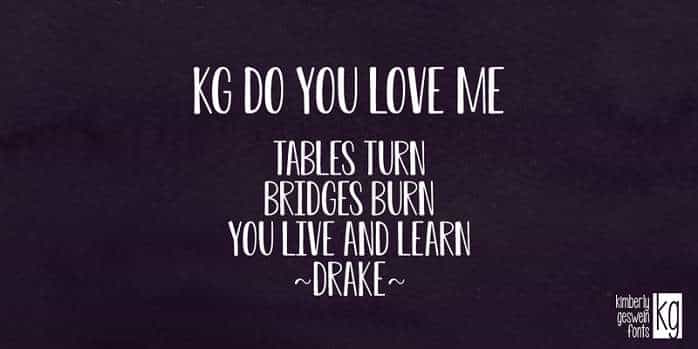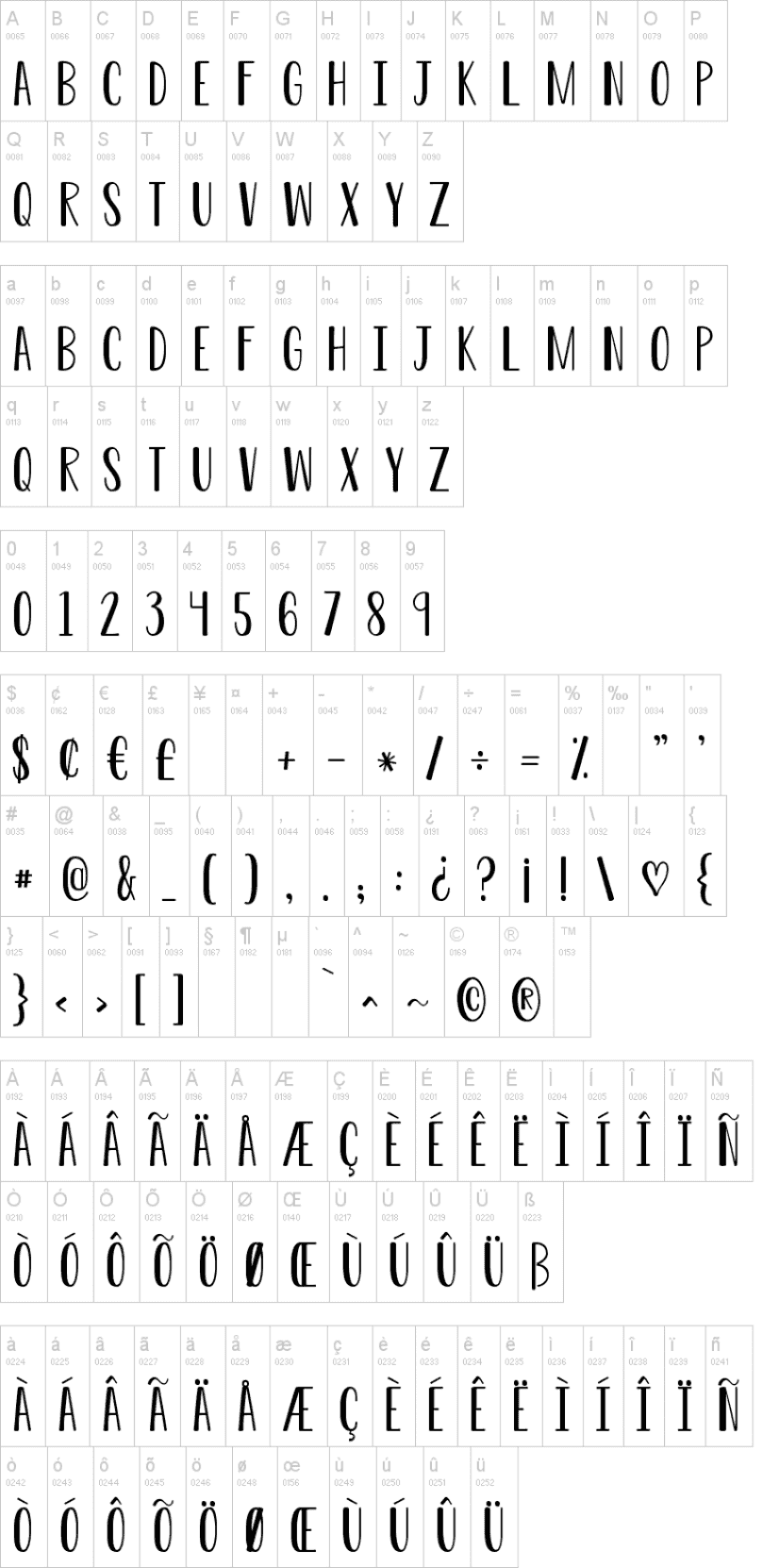
KG Do You Love Me is a high quality Various font created by Kimberly Geswein and is freely available for downloading and using it for personal purposes only. The free version has all the letters both upper case and lower case and just a few other symbols too.